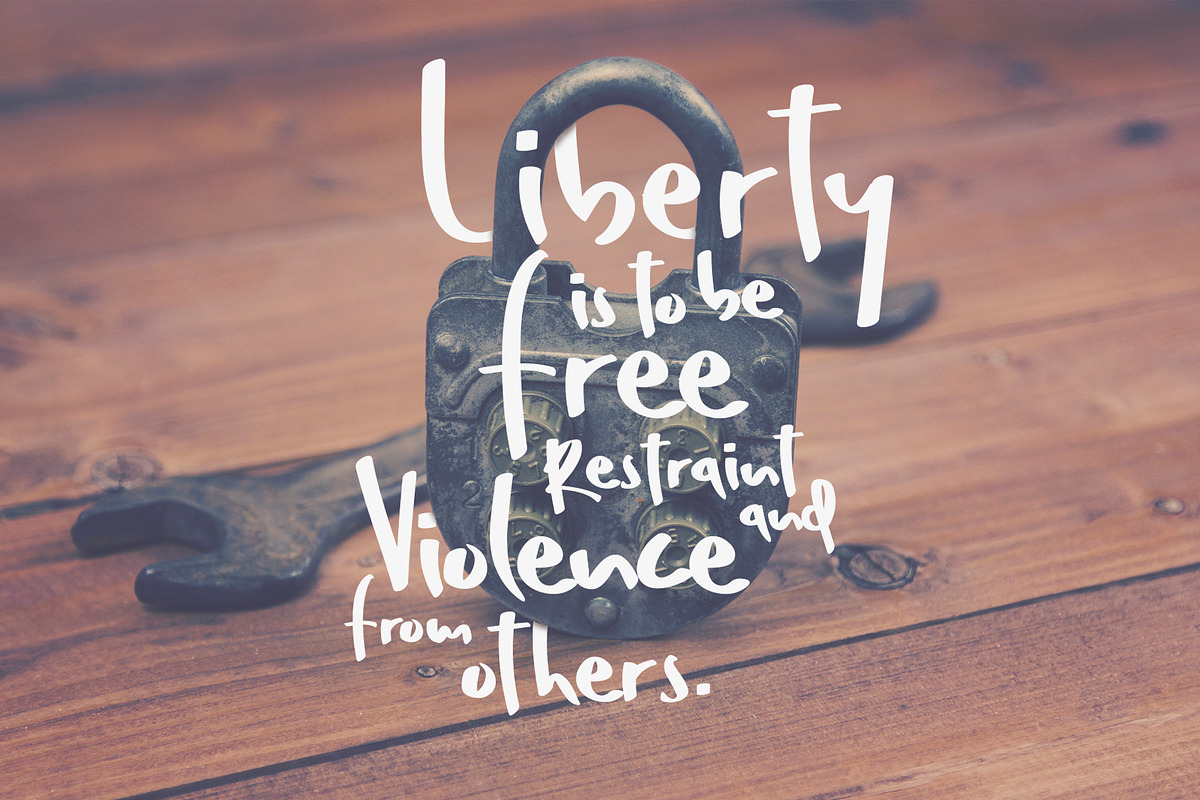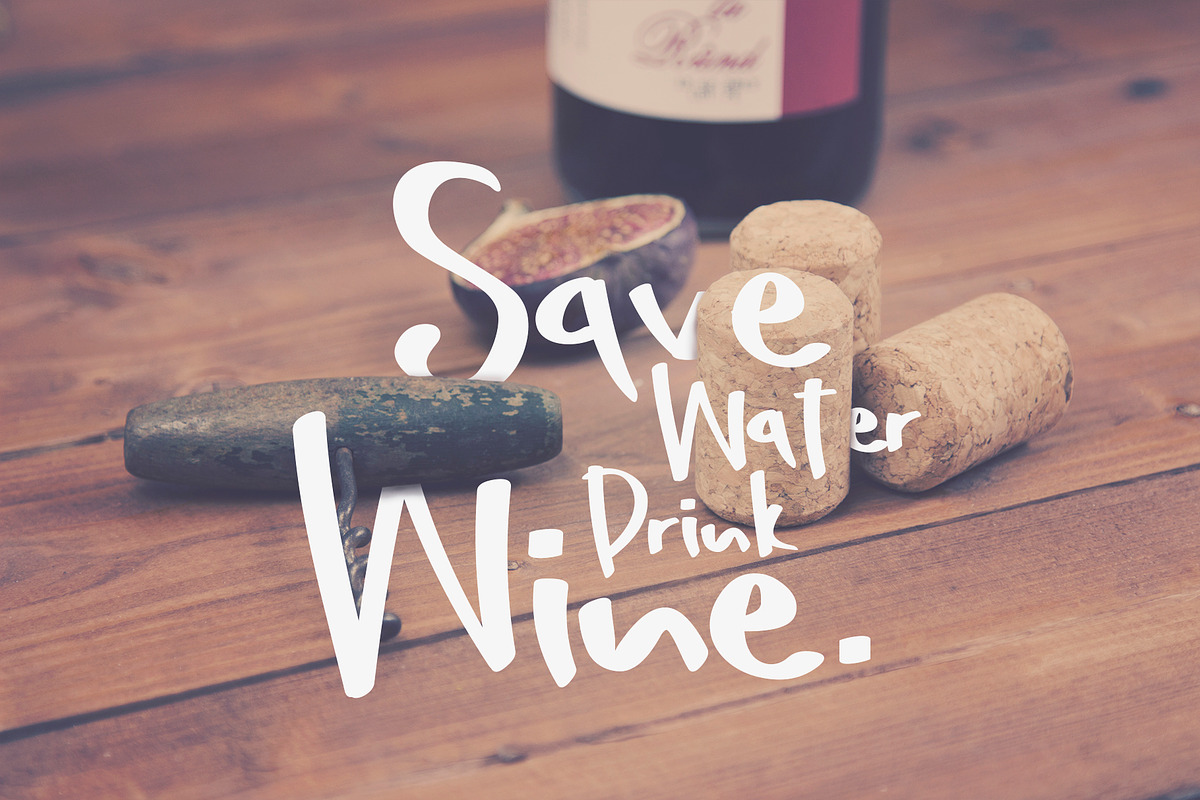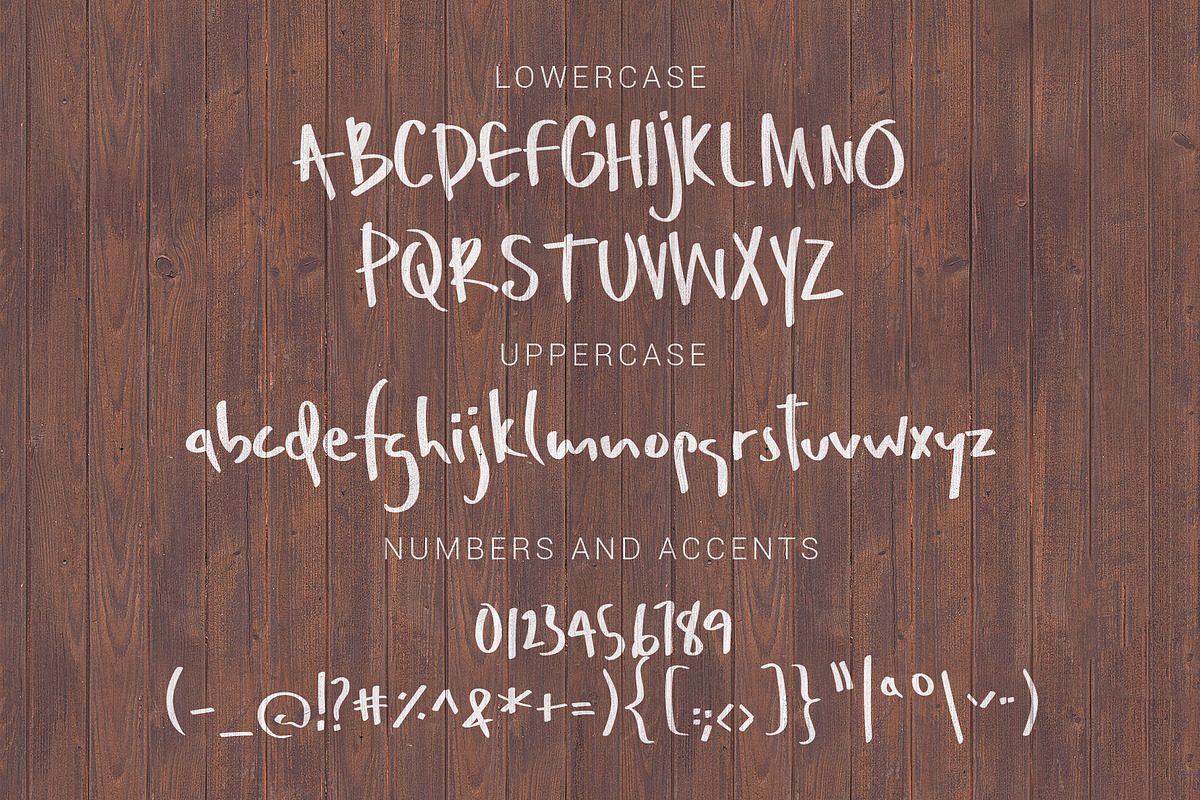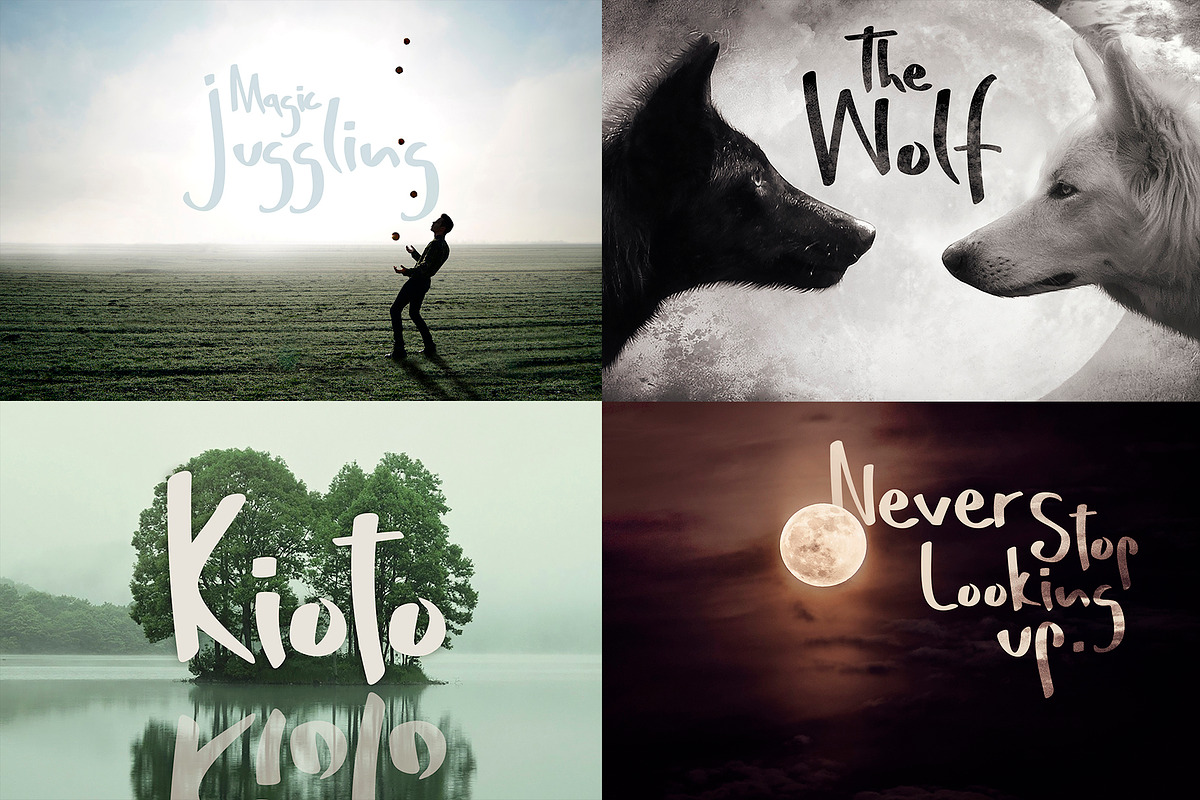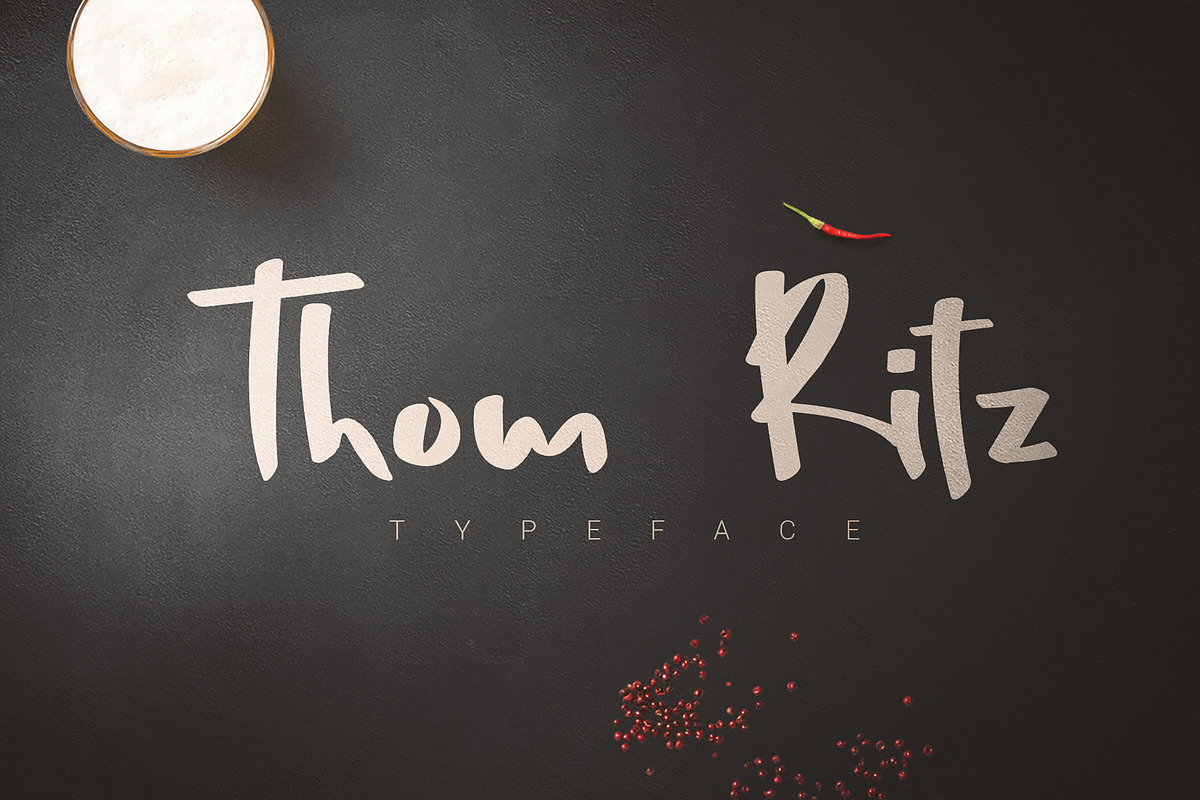
Thom Ritz Typeface
Thom Ritz family is a handmade marker font. Perfect to give a unique appearance to your designs. All punctuations, extensions, lowercase and uppercase, numbers and webfont.
Thom Ritz Typeface by SmartDesigns fits naturally into Branding, posters, packaging, typography.